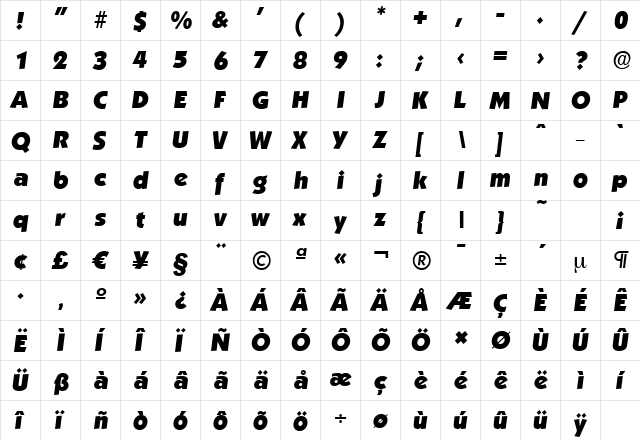
KoblenzSerial-Heavy Italic Font Preview
KoblenzSerial-Heavy Italic
KoblenzSerial-Heavy Italic Font Details
Design Context for KoblenzSerial-Heavy Typeface
KoblenzSerial-Heavy is a composed and adaptable typeface that performs quietly and consistently across a wide range of design contexts. The dynamic lean of this cut emphasises speed and emphasis in any layout.
Pro Tip: Use KoblenzSerial-Heavy for emphasis, pull quotes, and subheadings where its slanted energy can add rhythm to the layout.